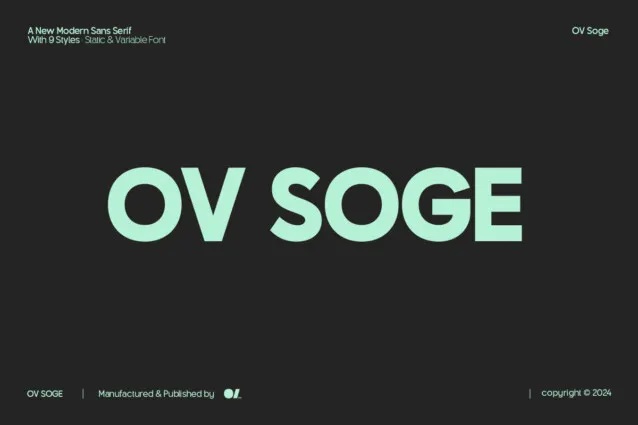
OV Soge Font Family
OV Soge is a brand-new sans serif Font family that features modern and clean styling that makes it ideal for projects requiring a professional aesthetic. Support for multiple languages allows this font to appeal to a global audience, making it a valuable design asset when building websites, branding materials or marketing campaigns.
OV Soge Sans Serif Font Family